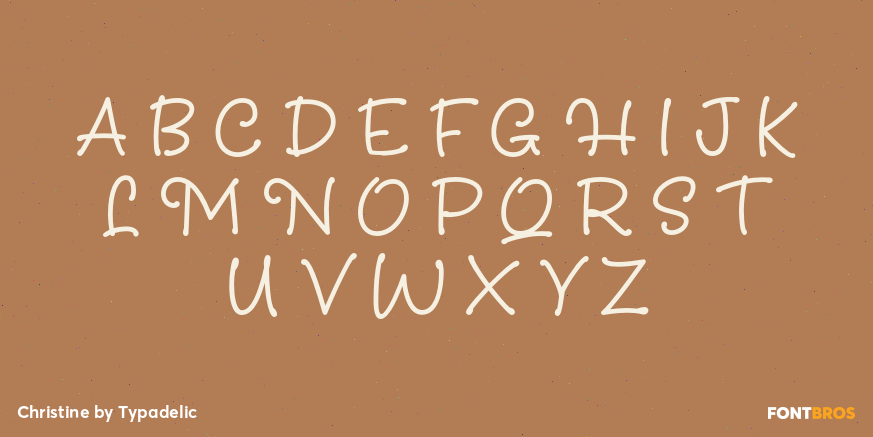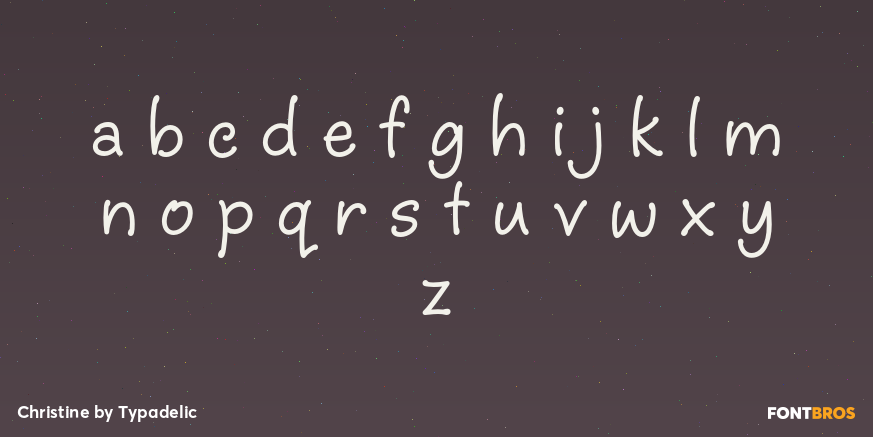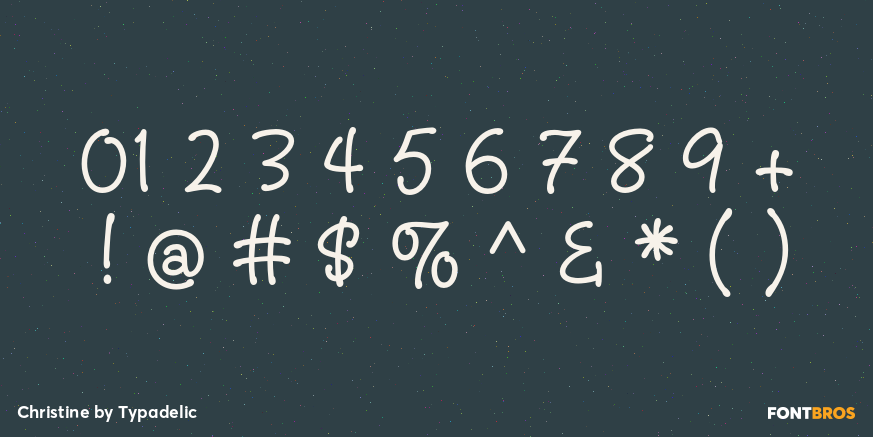
Christine
Font Family by Typadelic
This attractive handwriting typeface exudes casualness and informality. Very readable at small and large text sizes...perfect for scrapbooking, greeting cards and casual letter writing.